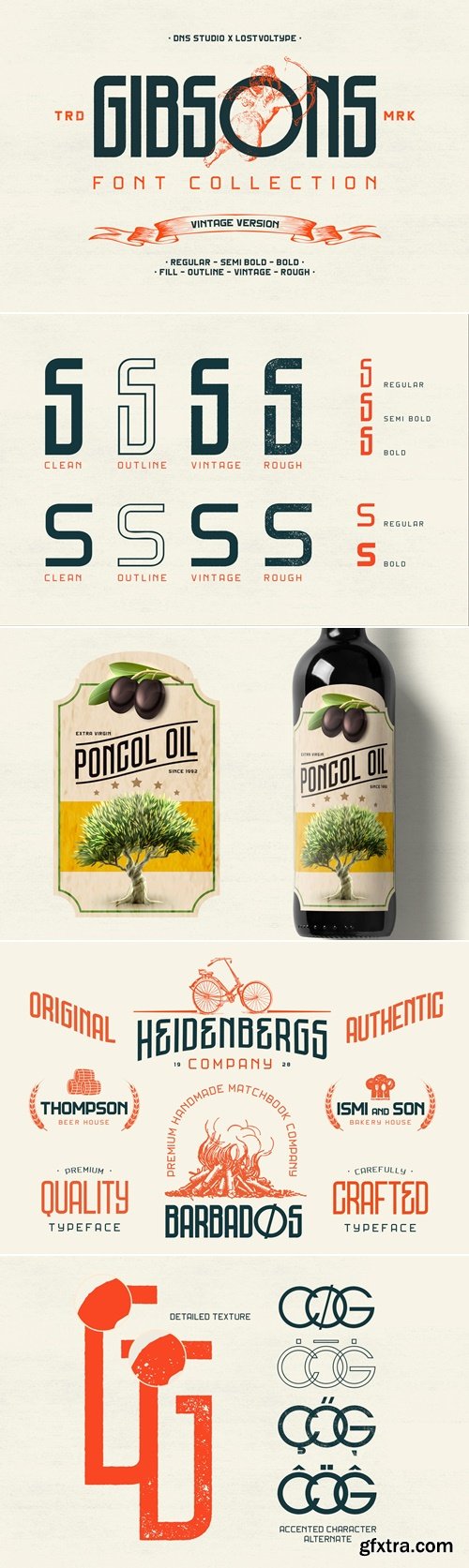
Gibsons Vintage Font
- After several months we created a brand new font Gibsons Font Collection includes 20 fonts on the package. The fonts have two & three weight from regular, semi-bold, and bold version. And what a great news is every weight have 4 styles fill (of course), outline, vintage (rough edge) and rough (textured). The font perfectly paired, a tall font combined with short font is the best combination. We also do not forget to add alternate character for the feature.